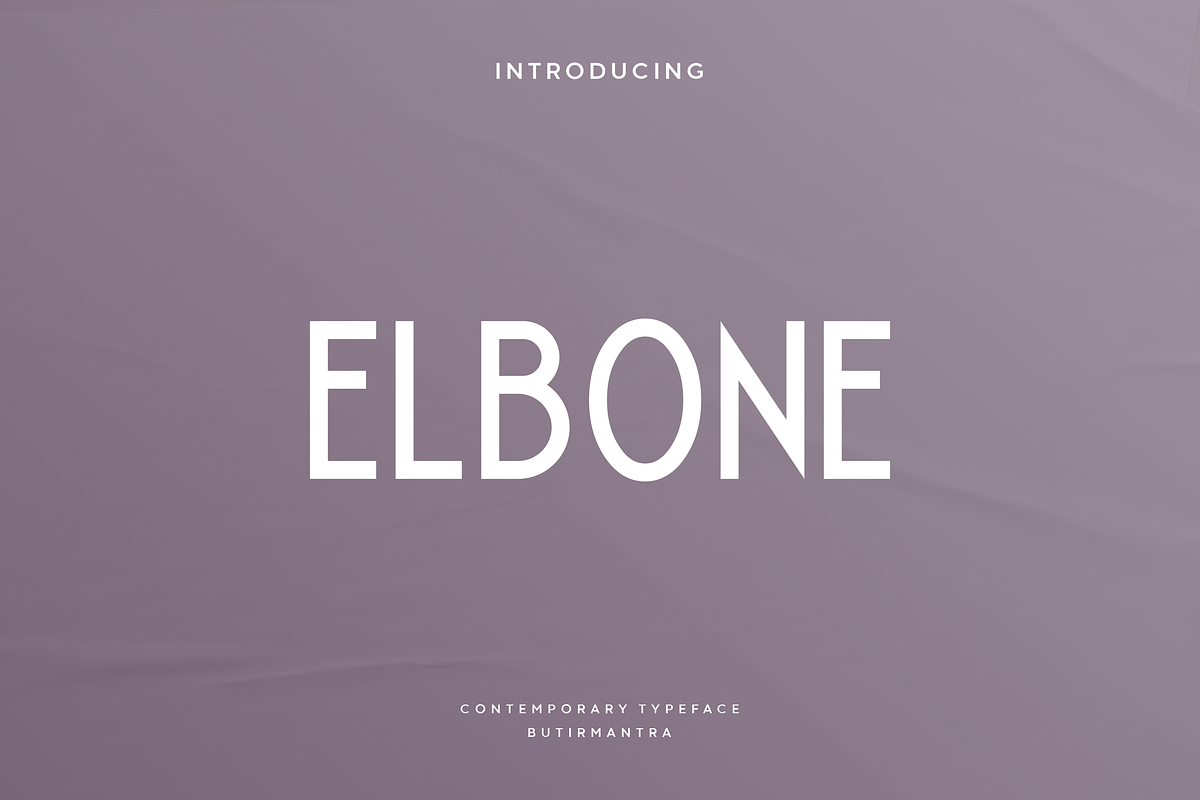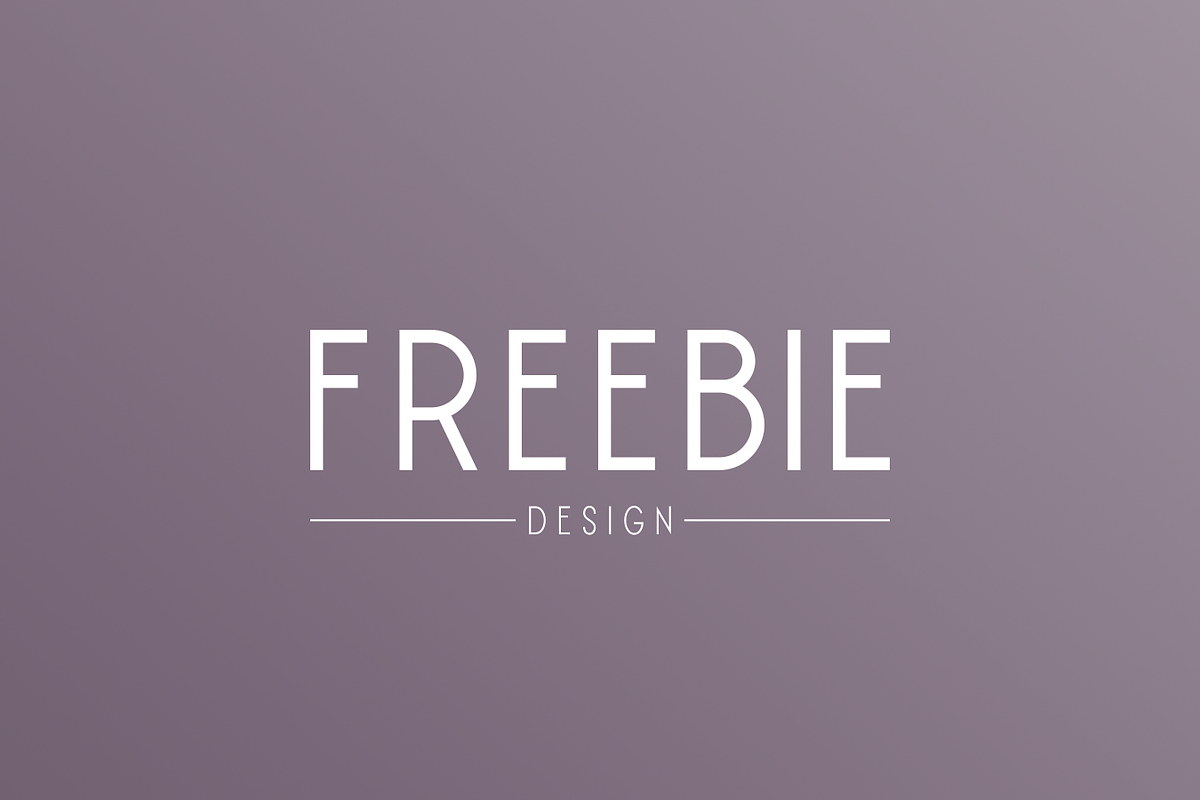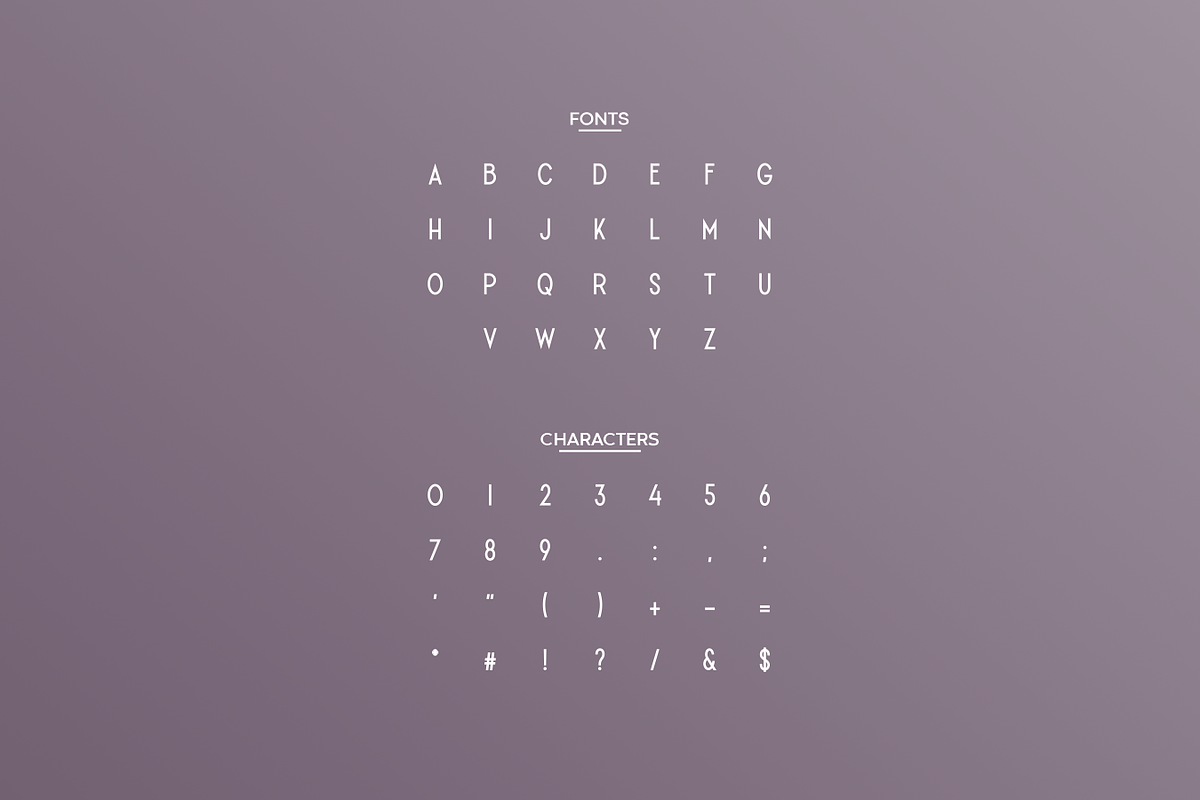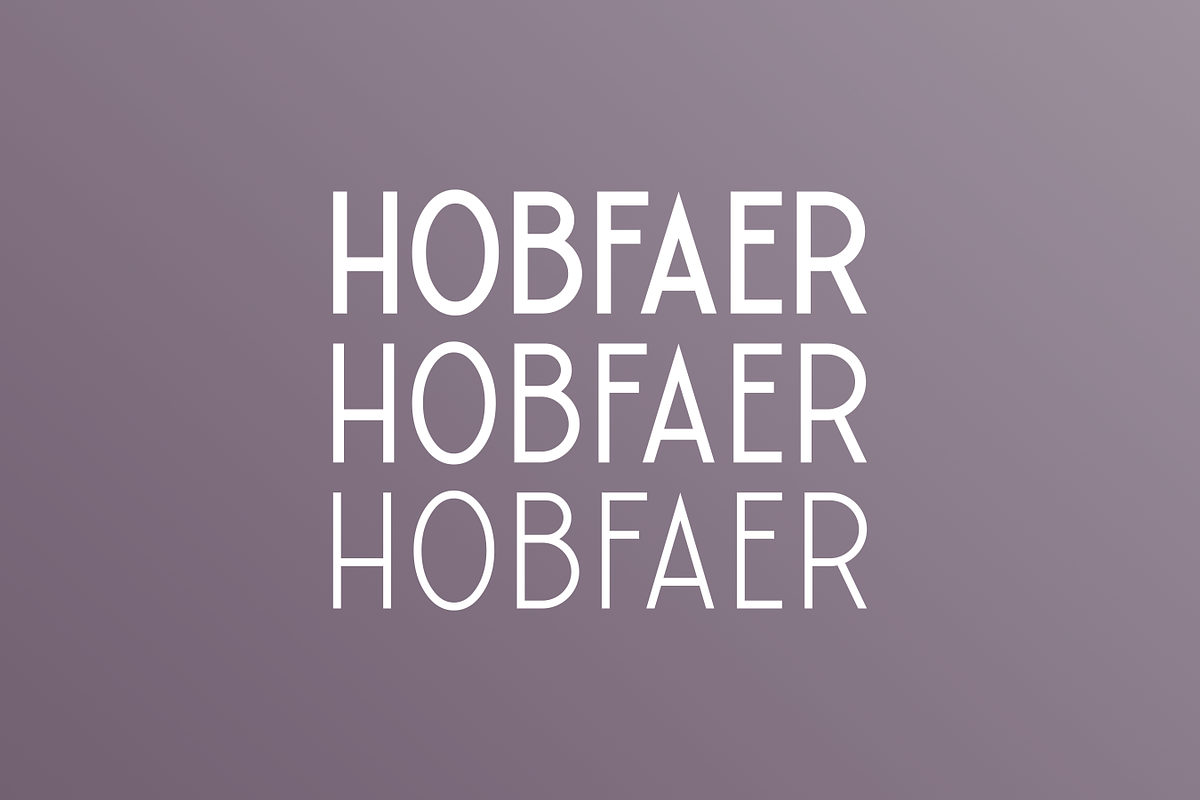
Elbone - Modern Display Typeface
Elbone is uppercase sans-serif typeface, It’s clean for various design asset but best for logos and heading. Elbone font comes with three different variations making this font very flexible in its use, the sleek and elegant main design makes it look classy and timeless.